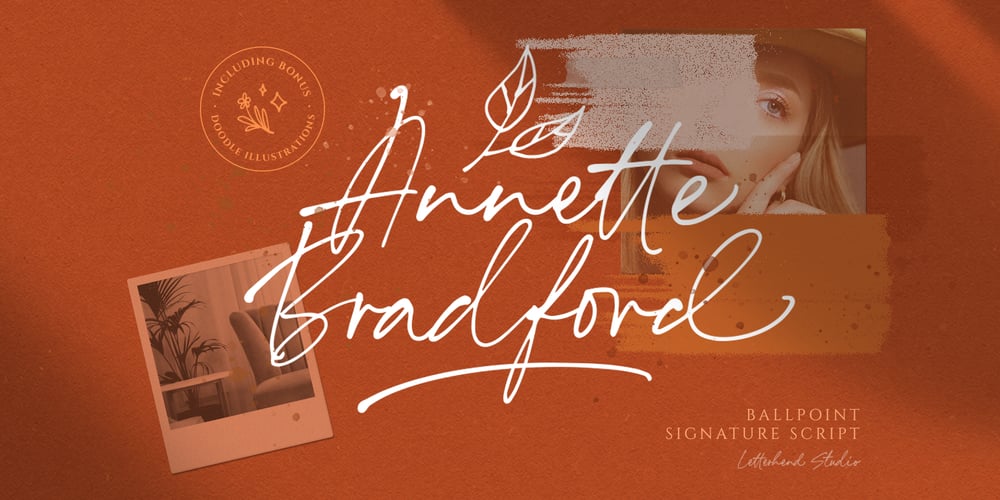
Annette Bradford Font Family was designed by Hendry Juanda and published by Letterhend. Annette Bradford contains 1 styles and family package options. Introducing, Annette Bradford – Ballpoint Signature Script. This typeface made from a natural ballpoint handwriting, so if you need digital signature or natural hand writing for quotes, this is the perfect typeface for you! This font perfectly made to be applied especially in logo, and the other various formal forms such as invitations, labels, logos, magazines, books, greeting / wedding cards, packaging, fashion, make up, stationery, novels, labels or any type of advertising purpose.Features : uppercase & lowercase numbers and punctuation multilingual ligatures alternates extra doodle (in glyphs panel) PUA encoded We highly recommend using a program that supports OpenType features and Glyphs panels like many of Adobe apps and Corel Draw, so you can see and access all Glyph variations.Email us to letterhend@gmail.com if you need something! Happy Designing!